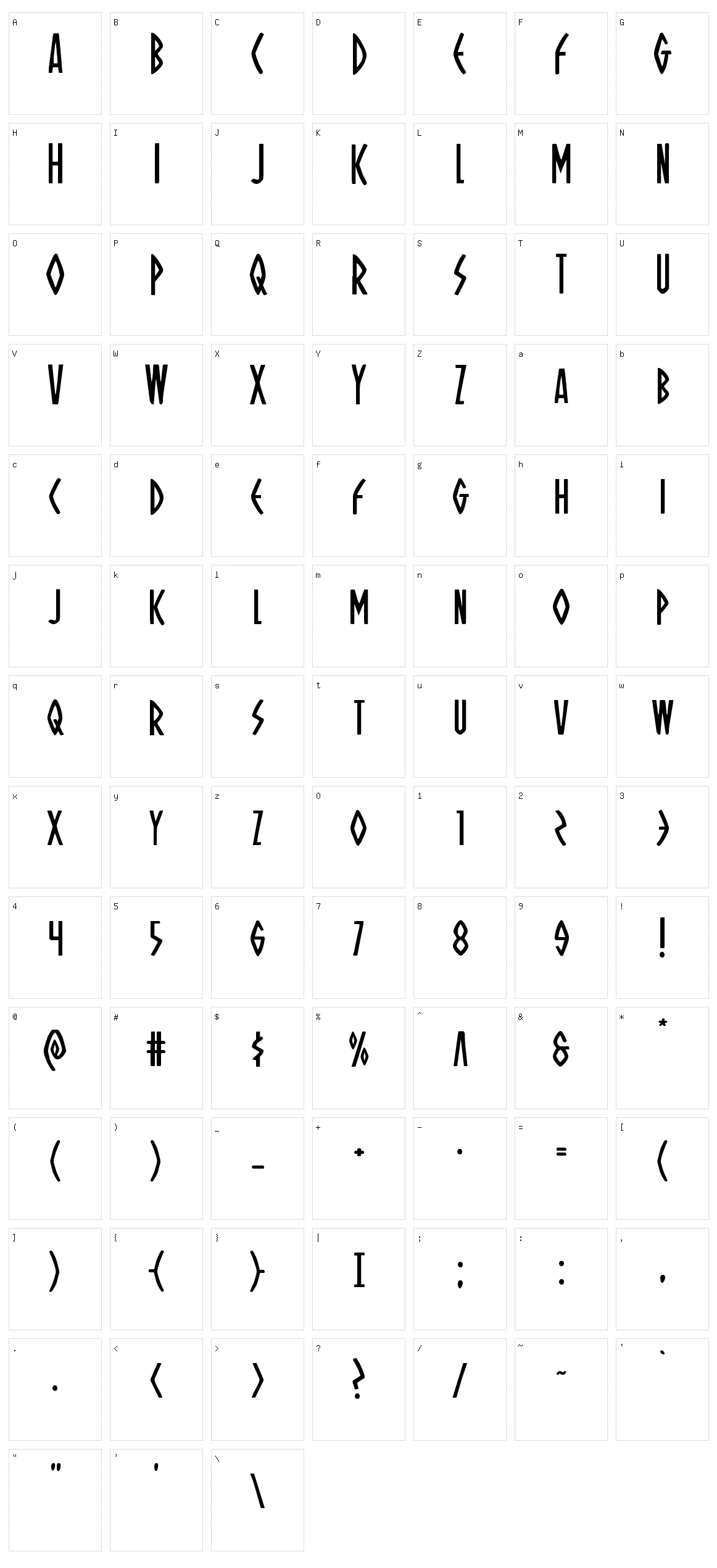
The free font Oh Mighty Isis is carefully designed by Iconian Fonts, showcasing a thoughtful balance of creativity and usability and falls under the Roman-Greek font style. When you download the ZIP file, it contains only 424.43 KB of font files, making it lightweight and quick to download. Please review the license details below to understand permitted usage and distribution rights. If license information is not available, we recommend using this font for personal projects only or contacting the author directly for commercial usage permissions.
This font comes with the following 15 versions: Regular, Italic, Condensed, Condensed Italic, Expanded, Expanded Italic, Bold, Bold Italic, Outline, Outline Italic, 3D, 3D Italic, Rotated, Rotalic and Leftalic.